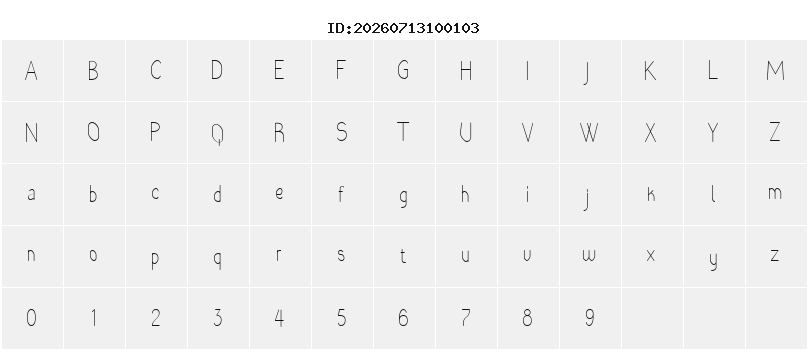
Rara Dolor Preview
• Font Name: Rara Dolor
• Full Font Name: Rara Dolor
• Designer: Fabiane Lima
About Rara Dolor.ttf
Rara Dolor.ttf is a modern, elegant sans-serif font designed for ultimate readability and visual harmony. Perfect for branding, headlines, web design, and print materials.